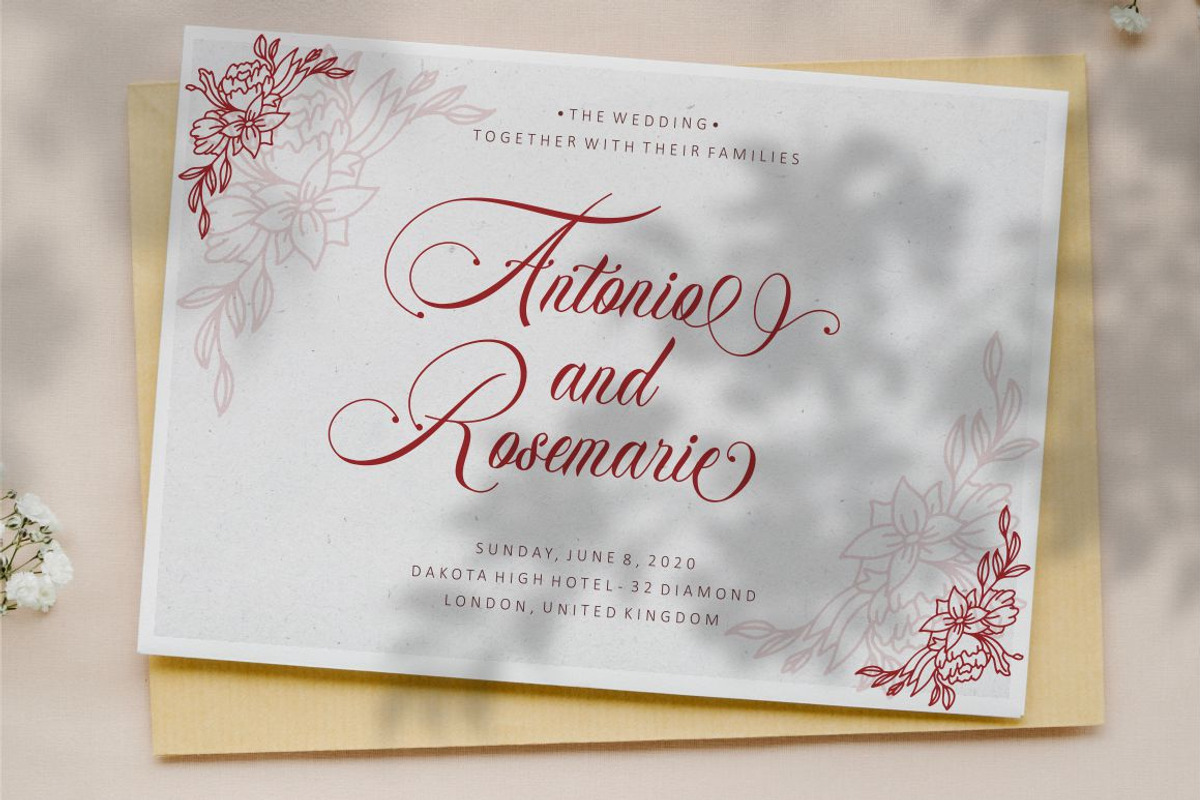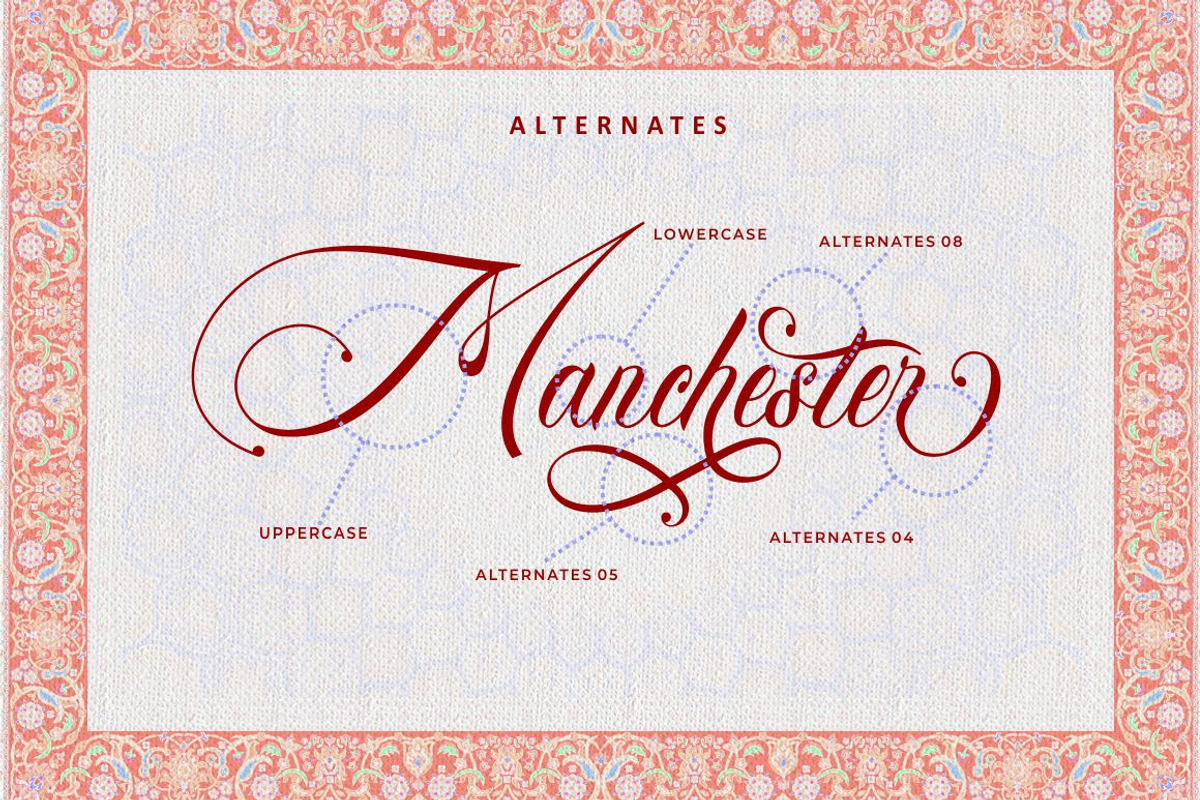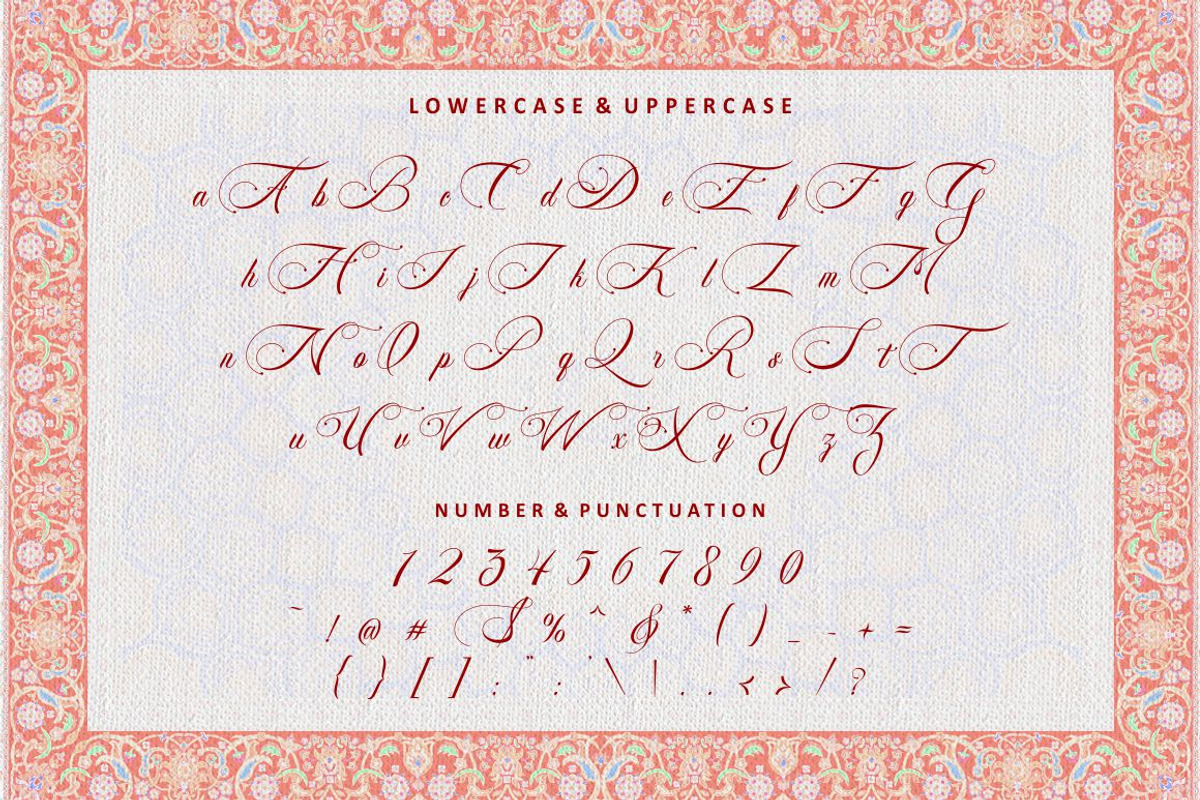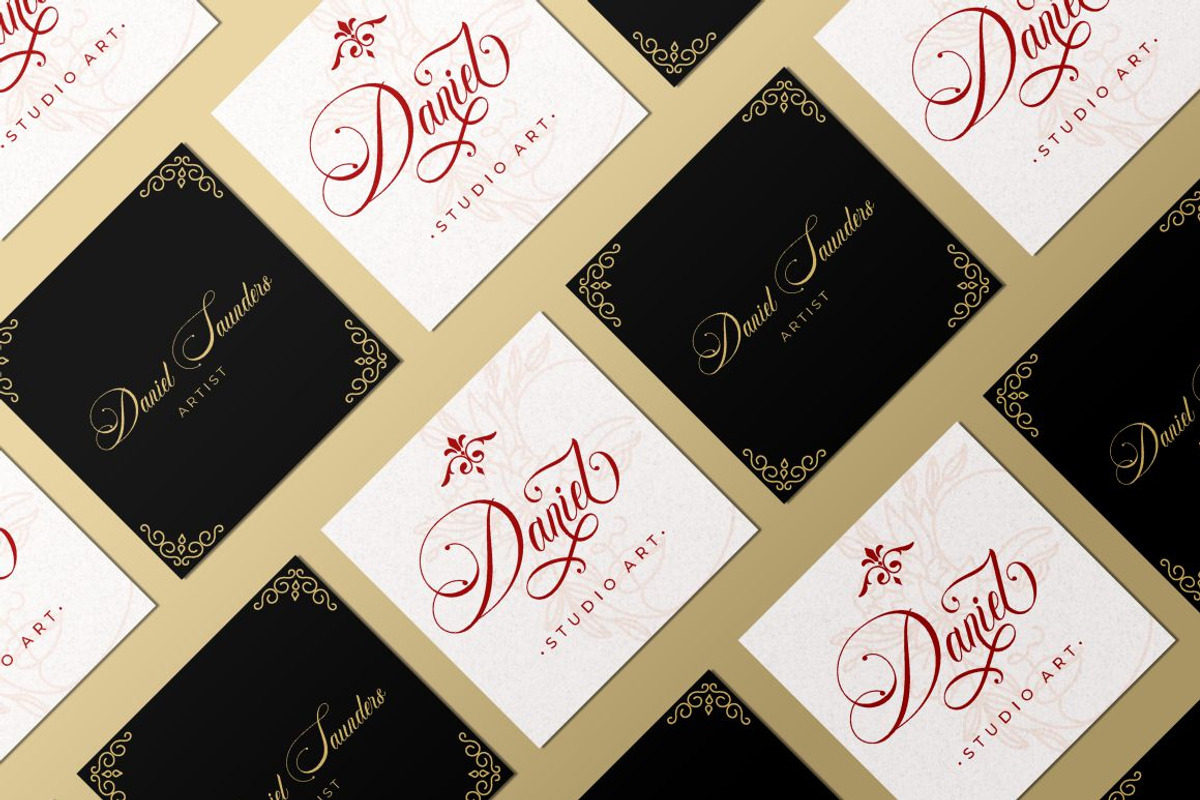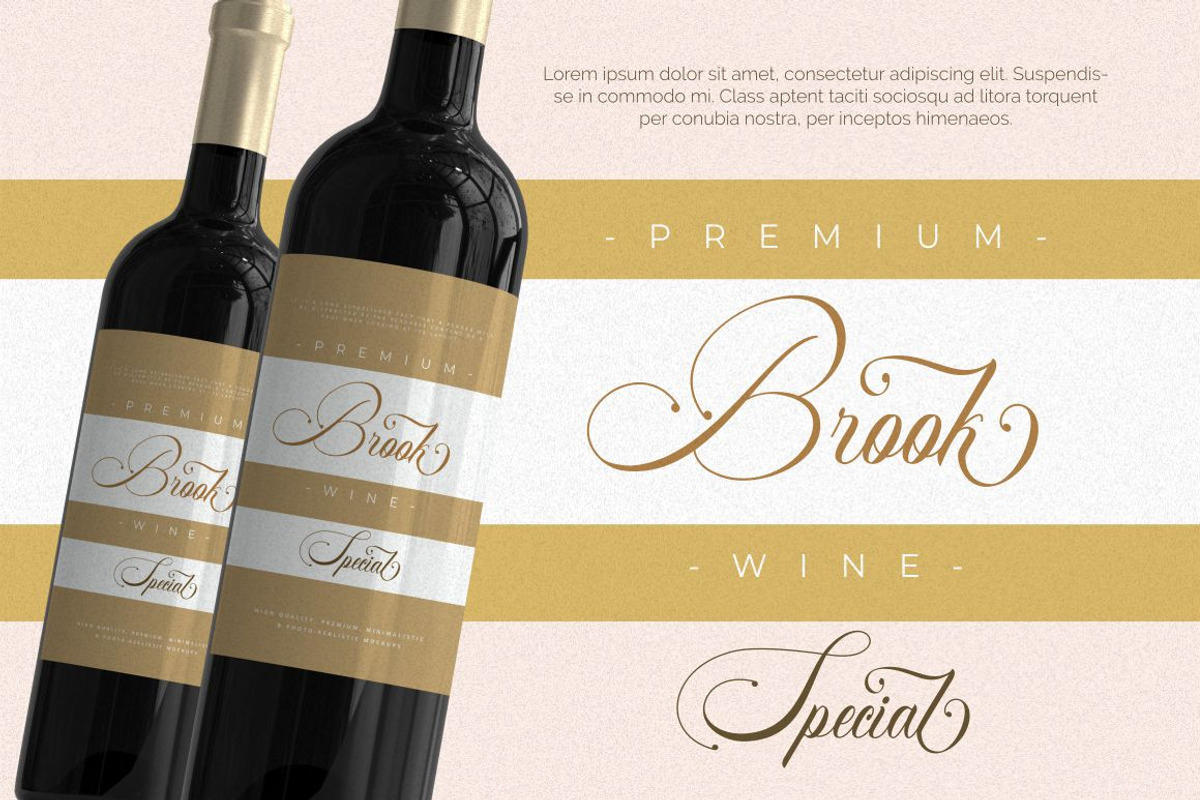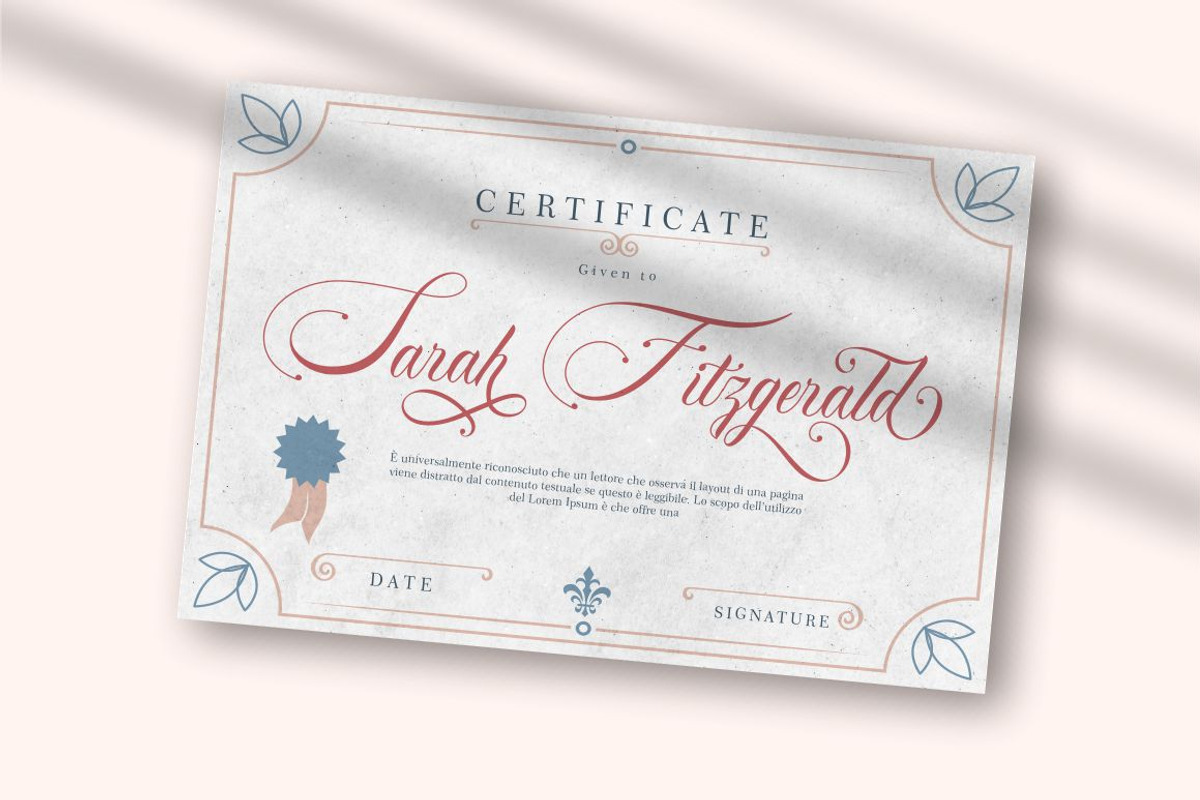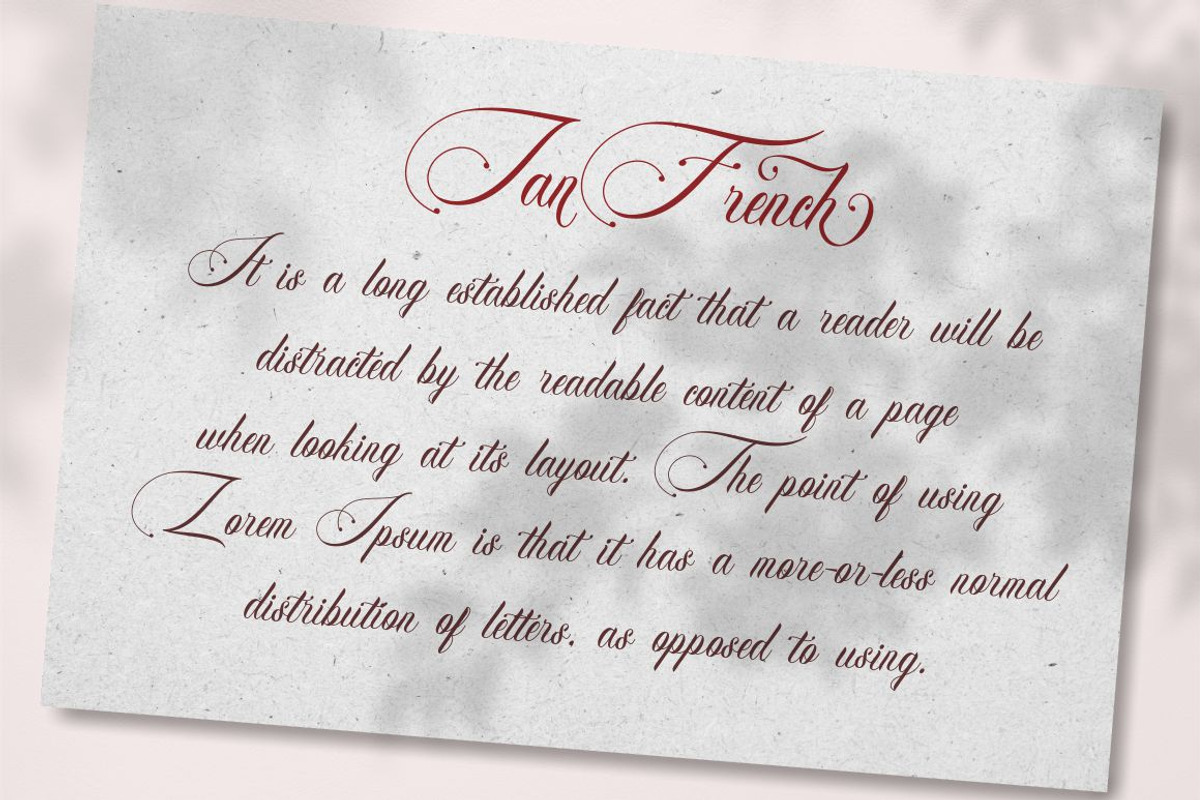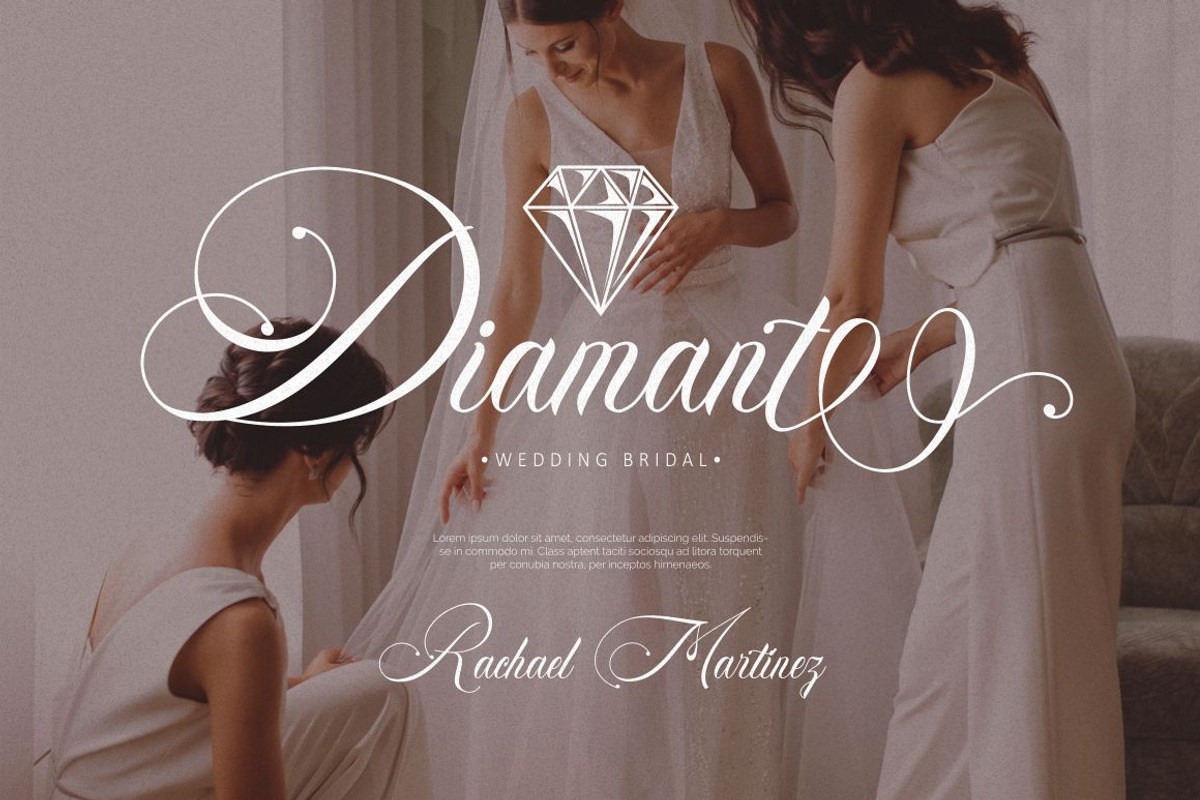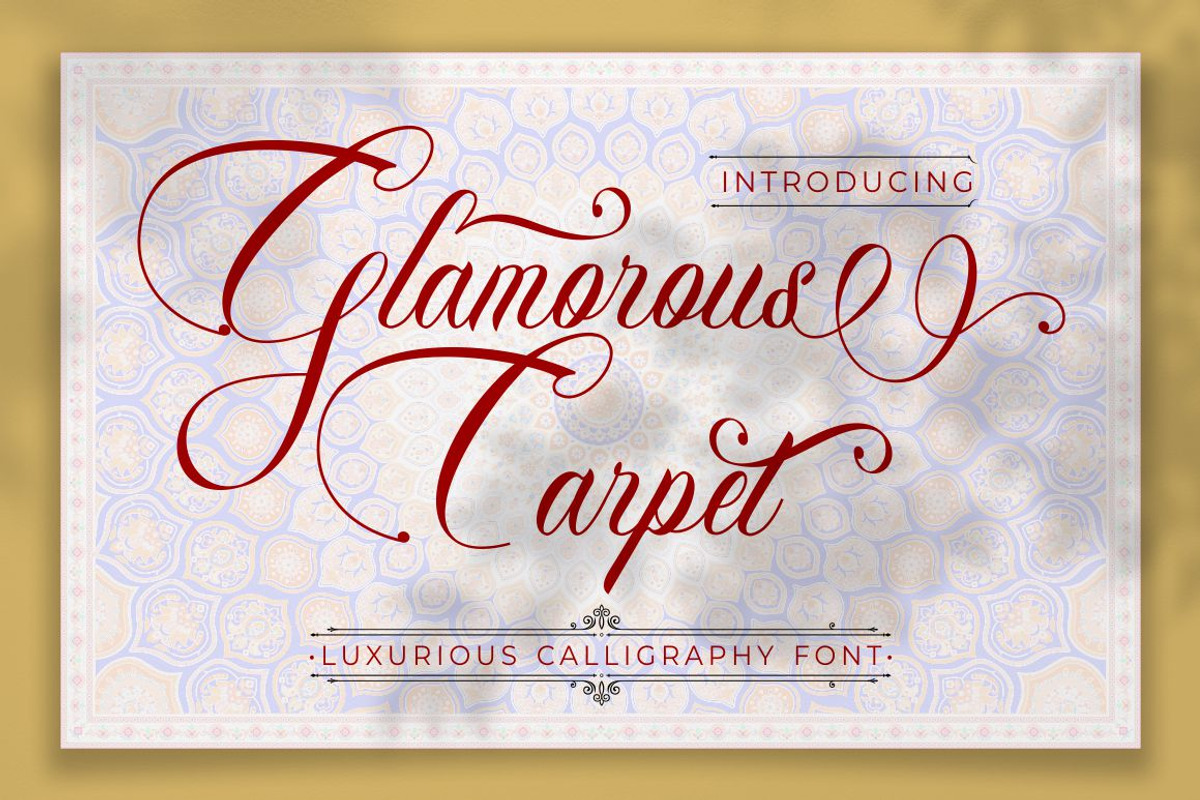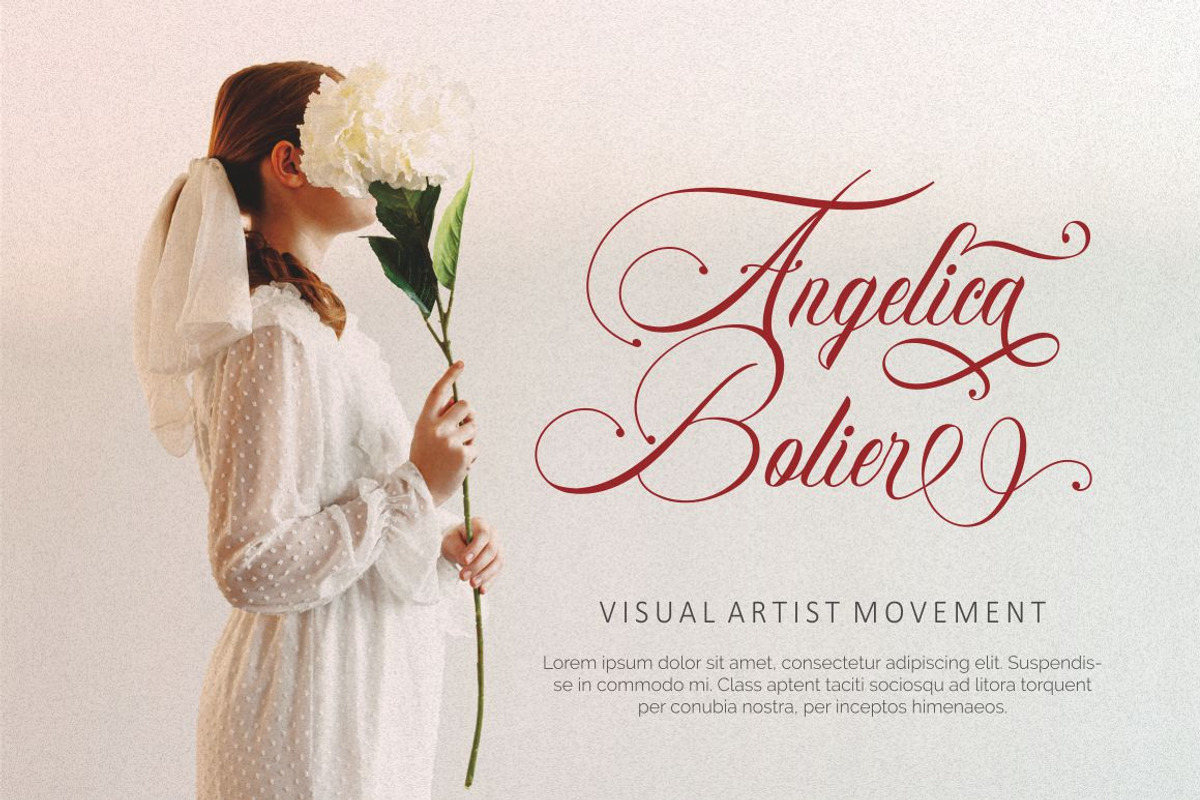
Glamorous Carpet - Luxurious Font
Glamorous Carpet - Luxurious Calligraphy Font
Glamorous Carpet - Luxurious Calligraphy Font. Glamorous Carpet is calligraphy font with a classic style and a luxury touch of elegance, and this font font inspired by delicate inky hand lettering, gorgeous wedding calligraphy and trending minimal branding designs
Glamorous Carpet designed to work together in harmony that makes it very suitable for wedding media, book covers, greeting cards, logos, branding, business cards and certificates, even for any design work that requires a classic, formal or luxurious
The alternative characters were divided into several Open Type features such as Swash, Stylistic Sets, Stylistic Alternates, Contextual Alternates, and Ligature. The Open Type features can be accessed by using Open Type savvy programs such as Adobe Illustrator, Adobe InDesign, Adobe Photoshop Corel Draw X version, And Microsoft Word. This font is also support multi language.
Comes with feature :
- Opentype (Alternates And Ligatures)
- Number, Punctuation And Symbols
- Multilanguage Support.